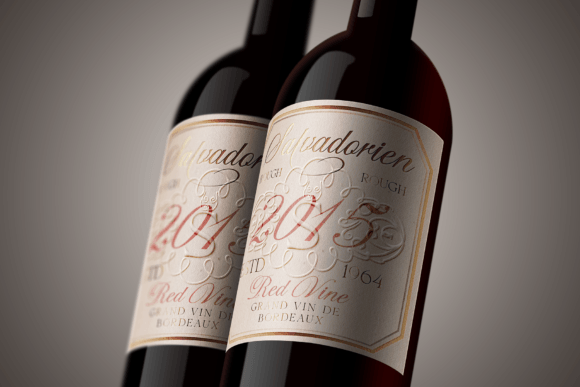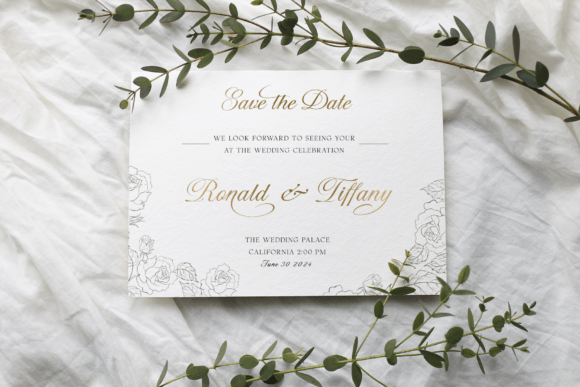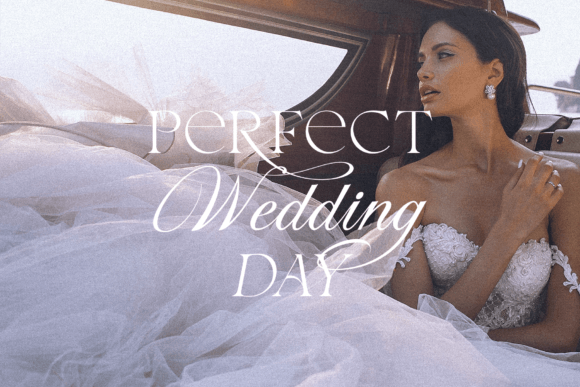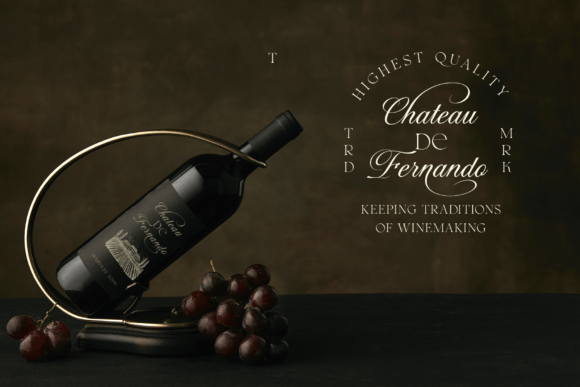
Intenso Font
Intenso This is a elegant font family that fits perfectly with each other and includes three styles: script, serif and italic style.
Script is classic, aesthetic, elegant and carefully put together. Perfect for any project where elegance, grace and purity of calligraphy are important. The script includes alternatives for both uppercase and lowercase letters.
Serif is a graceful and elegant. It has medium proportions and high contrast and sharp serifs. It will look great in headlines and short texts. Serif font includes only capital letters and their alternates, addition in this family an italic serif style is included.